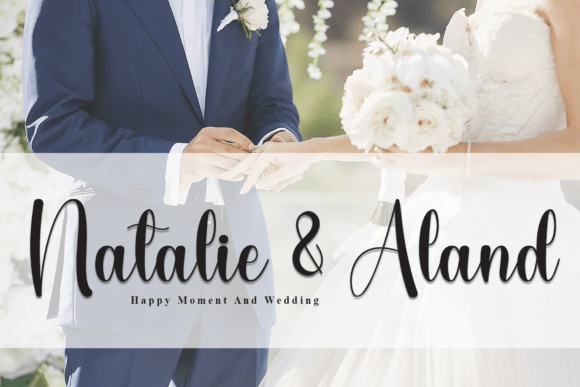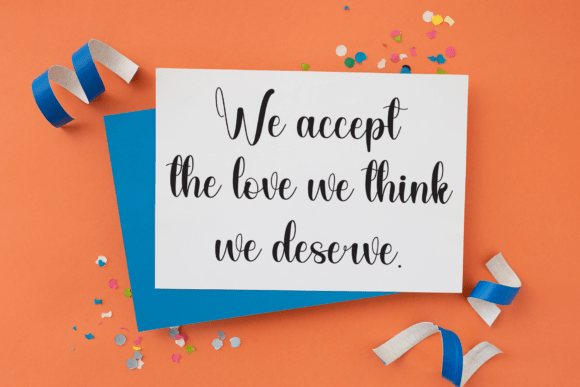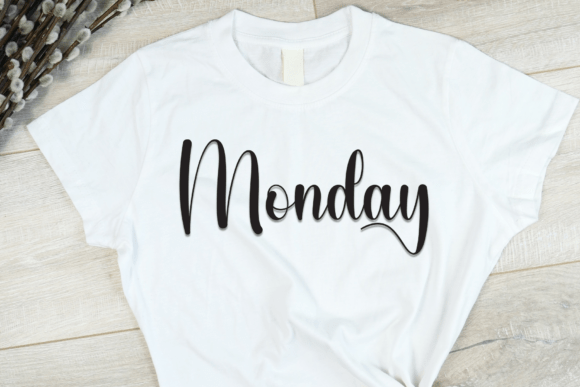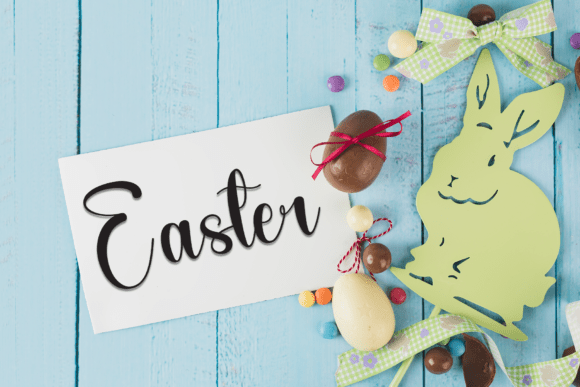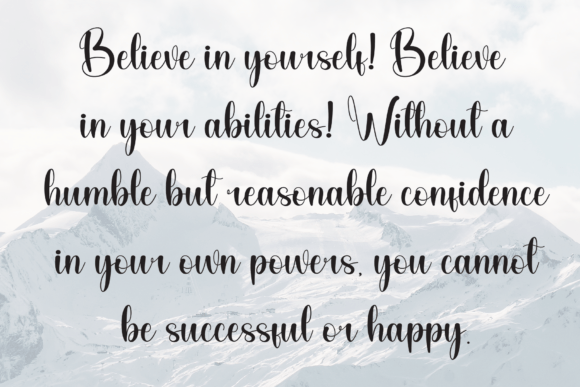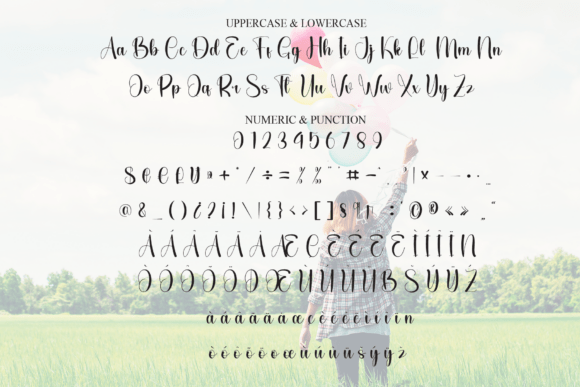
Introducing Delightful Font: Elevate Your Designs with Effortless Elegance
In the world of typography, few fonts capture the essence of personal expression and elegance as beautifully as Delightful Font. This charming script handwritten font is designed to blend natural flow with effortless elegance, making it an ideal choice for designers and crafters looking to add a personal, heartfelt touch to their projects.
The Characteristics of Delightful Font
Delightful Font boasts smooth curves and varied stroke widths, which collectively contribute to its unique, handmade feel. This typeface mimics authentic penmanship but with a stylish twist, allowing it to stand out in any design. The fluidity of its strokes and the slight imperfections inherent in handwritten fonts give Delightful Font a warm, inviting appearance that resonates with audiences.
One of the key advantages of Delightful Font is its versatility. It is perfect for a wide range of projects, including:
- Logos: Add a touch of elegance and personality to your brand’s logo, making it memorable and distinctive.
- Wedding Invitations: Bring romance and sophistication to your wedding invitations, making them truly special and personalized.
- Social Media Graphics: Elevate your social media presence with stylish and engaging graphics that reflect your personal or brand’s identity.
- Personal Branding: For individuals looking to create a personal brand, Delightful Font offers a way to convey warmth, creativity, and professionalism.
Design Versatility with Delightful Font
Delightful Font is not just a typeface; it’s a design statement. It effortlessly adapts to various design needs, offering:
- Romantic Designs: Its elegant strokes and fluid connections make it perfect for projects that require a romantic or feminine touch.
- Feminine Designs: The subtle variations in line width and the graceful curves give Delightful Font a distinctly feminine charm.
- Casual Designs: Despite its elegance, Delightful Font also works well for more casual projects, providing a friendly and approachable feel.
Why Choose Delightful Font?
In a digital age where uniformity and sans serif fonts dominate, Delightful Font offers a refreshing alternative. Here are a few reasons why it should be your go-to font for your next project:
- Unique and Memorable: Delightful Font’s distinctive style ensures that your designs stand out and are remembered.
- Emotional Connection: The personal and handmade feel of this font helps create an emotional connection with your audience, making your designs more impactful.
- Easy to Read: Despite its elegant and cursive nature, Delightful Font remains highly legible, making it suitable for both headings and body text.
How to Use Delightful Font Effectively
To make the most of Delightful Font, consider the following tips:
- Pair with Complementary Fonts: For maximum effect, pair Delightful Font with simpler, sans serif fonts to create contrast and hierarchy in your designs.
- Adjust Letter Spacing: Slightly adjust the letter spacing to enhance readability and aesthetic appeal, especially in longer texts.
- Experiment with Colors: While Delightful Font shines in black or dark colors, don’t hesitate to experiment with soft pastels or watercolor effects to amplify its charm.
Delightful Font is more than just a typeface; it’s a tool for designers and crafters to infuse their projects with personality, elegance, and a touch of the personal. Its versatility, combined with its unique characteristics, makes it an excellent choice for a wide range of applications. Whether you’re aiming to create romantic wedding invitations, elevate your brand’s logo, or simply add a personal touch to your social media graphics, Delightful Font offers the perfect blend of style and warmth.
Embrace Delightful Font in your next project and discover how it can transform your designs with its effortless elegance and heartfelt charm.